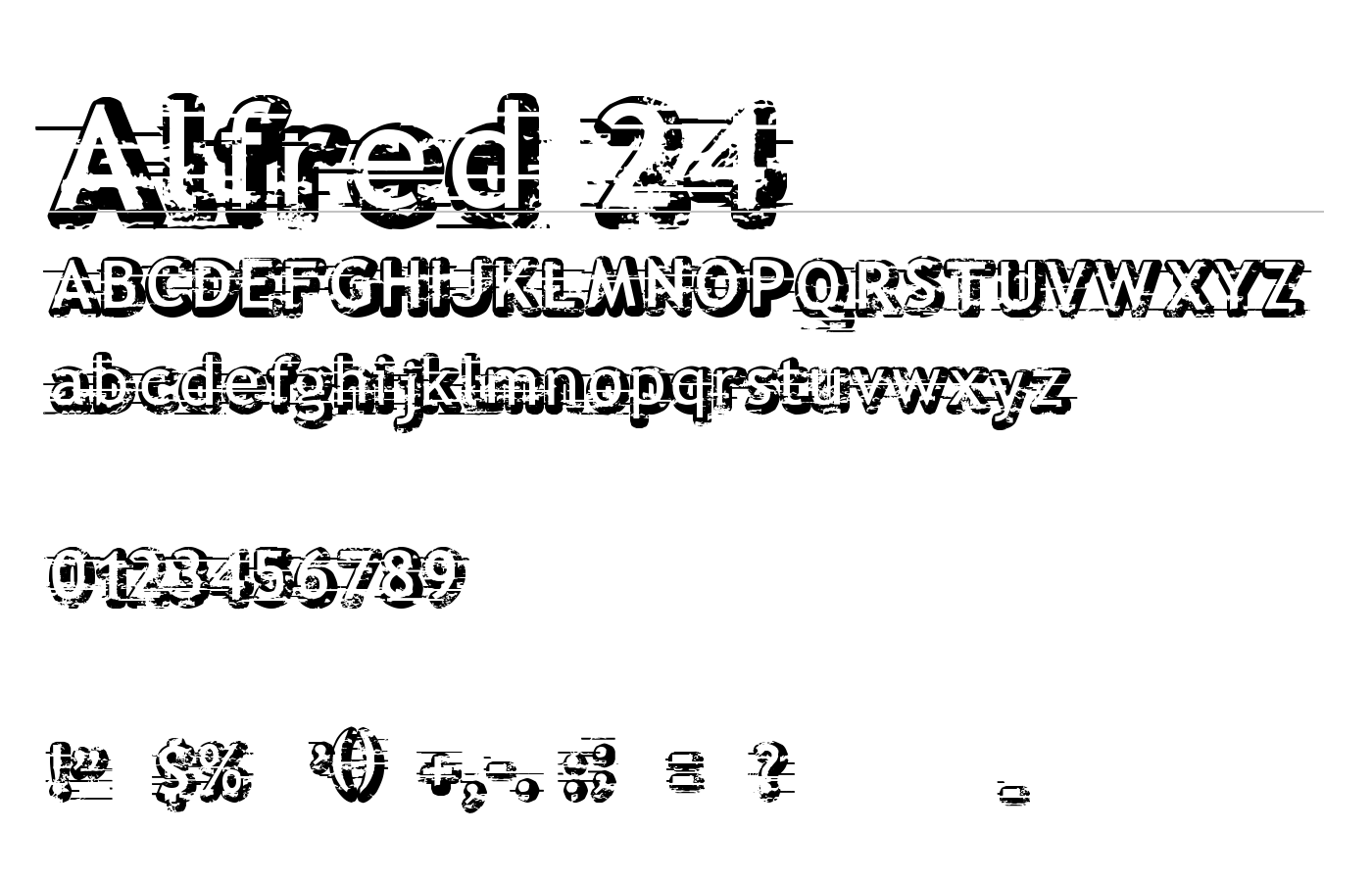
Alfred 24 is a bold sans serif font with a distressed, grungy texture that gives it a rugged, vintage feel. Its strong, blocky letterforms and high contrast between solid and worn areas make it perfect for edgy designs, logos, and posters that want to convey a sense of toughness or urban style. This font works well in creative projects that need a bold statement with a raw, authentic character.
Alfred 24 Font
About Alfred 24 Font